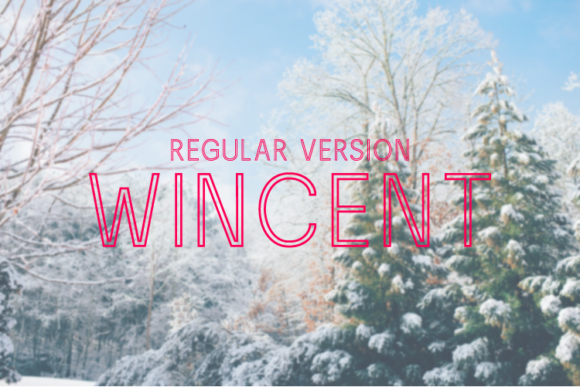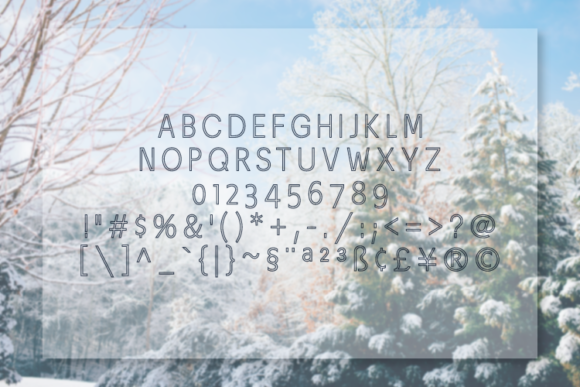
HomeSans Serif FontsWincent Outline Regular Font Sans Serif Fonts Wincent Outline Regular Font FacebookXPinterestWhatsApp Wincent Outline Regular Font 1 of 2 About Wincent Outline Regular Font Wincent is a geometric font family with an incredibly simple and elegant style. It features soft terminals and will give any design project a friendly and expressive look! DOWNLOAD NOW People also explored Parasyut Font Chickyplum Font Bison Captain Font Prechley Font Signature Chocolate Font Mervyn Lewis Font Bagline Script Font Amsterdam Signature Font Stayshiny Font 350 0 TagsWincent Outline Regular Font Previous articleGR Read FontNext articleArbour Font LEAVE A REPLY Cancel reply Comment: Please enter your comment! Name:* Please enter your name here Email:* You have entered an incorrect email address! Please enter your email address here Website: Save my name, email, and website in this browser for the next time I comment. Personal Use Free Maharany Personal Use Free Read more about this font Handayani Personal Use Free Read more about this font Gila Personal Use Free Read more about this font Winner Personal Use Free Read more about this font BLOG Free Fonts Risk: Why Free Fonts Can Be Dangerous for Designers Free Fonts Risk: Why Free Fonts Can Be Dangerous for Designers Using free fonts is a common practice in web and graphic design. However, the... How to Install and Use Fonts on Windows, macOS, and Web Projects Fonts That Capture the Spirit of New York City Best Fonts for YouTube Videos: Make Your Thumbnails Stand Out